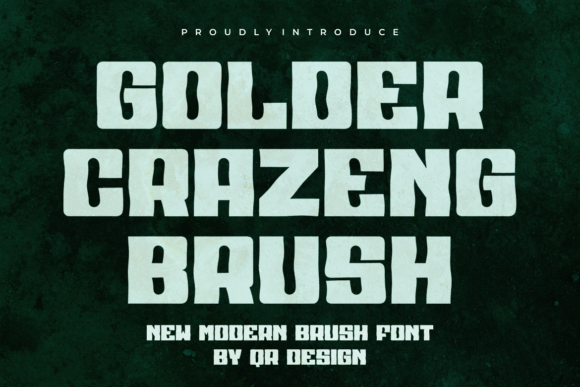
Golder Crazeng Brush Font: Elevate Your Designs with a Cool and Bold Sans Display Font
Are you tired of using the same old fonts in your creative projects? Do you want to add a touch of uniqueness and personality to your designs? Look no further than the Golder Crazeng Brush Font! This cool and bold sans display font is perfect for those who want to make a statement and take their designs to the next level. In this article, we’ll explore the features and benefits of Golder Crazeng Brush Font, and how you can use it to elevate your creative projects.
What is Golder Crazeng Brush Font?
Golder Crazeng Brush Font is a sans-serif display font that is designed to make a bold statement. With its unique brush-like strokes and cool, edgy vibe, this font is perfect for designers who want to add a touch of personality to their work. The font is highly versatile and can be used for a wide range of projects, from logos and branding to posters, flyers, and social media graphics.
Key Features of Golder Crazeng Brush Font
- Cool and Bold Design: Golder Crazeng Brush Font has a unique and eye-catching design that is sure to grab attention.
- Sans-Serif Style: The font has a clean and modern sans-serif style that makes it perfect for a wide range of projects.
- Brush-Like Strokes: The font features brush-like strokes that give it a unique and artistic feel.
- Highly Versatile: Golder Crazeng Brush Font can be used for a wide range of projects, from logos and branding to posters, flyers, and social media graphics.
- Easily Customizable: The font is highly customizable, allowing you to adjust the size, color, and style to suit your needs.
Benefits of Using Golder Crazeng Brush Font
So why should you choose Golder Crazeng Brush Font for your creative projects? Here are just a few benefits of using this amazing font:
- Adds Personality to Your Designs: Golder Crazeng Brush Font adds a touch of personality and uniqueness to your designs, setting them apart from the crowd.
- Grabs Attention: The font’s bold and eye-catching design is sure to grab attention and make your designs stand out.
- Perfect for Creative Projects: Golder Crazeng Brush Font is perfect for creative projects, such as logos, branding, posters, flyers, and social media graphics.
- Easy to Use: The font is easy to use and can be easily customized to suit your needs.
How to Use Golder Crazeng Brush Font
Using Golder Crazeng Brush Font is easy! Here are a few tips to get you started:
- Choose the Right Size: Choose a size that suits your project, and adjust as needed.
- Experiment with Colors: Try out different colors to find the one that works best for your design.
- Pair with Other Fonts: Pair Golder Crazeng Brush Font with other fonts to create a unique and interesting design.
- Use for Headings and Titles: Use Golder Crazeng Brush Font for headings and titles to add a touch of personality to your designs.
Tips and Tricks for Getting the Most Out of Golder Crazeng Brush Font
Here are a few tips and tricks to help you get the most out of Golder Crazeng Brush Font:
- Use for Large Text: Golder Crazeng Brush Font is perfect for large text, such as headings and titles.
- Experiment with Different Styles: Try out different styles, such as bold, italic, and underline, to add variety to your designs.
- Use for Logos and Branding: Golder Crazeng Brush Font is perfect for logos and branding, adding a touch of personality and uniqueness to your brand.
- Pair with Images: Pair Golder Crazeng Brush Font with images to create a visually interesting design.
In conclusion, Golder Crazeng Brush Font is a cool and bold sans display font that is perfect for creative projects. With its unique brush-like strokes and highly versatile design, this font is sure to add a touch of personality and uniqueness to your designs. Whether you’re a designer, artist, or DIY enthusiast, Golder Crazeng Brush Font is a great choice for anyone looking to elevate their designs and make a statement.